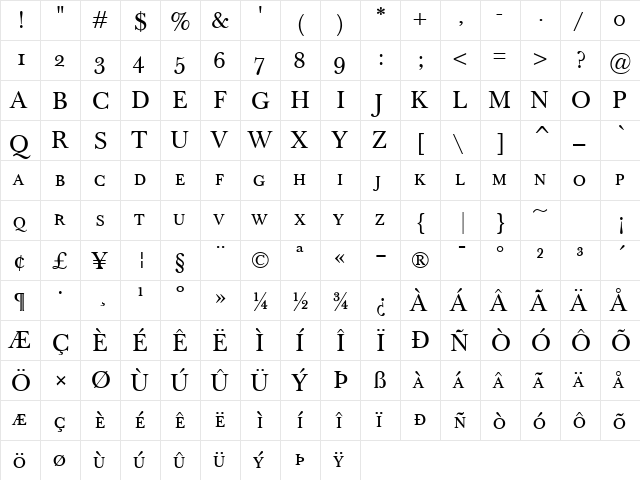
Baskerville Classico SC Regular
Design Context for Baskerville Classico SC Typeface
Baskerville Classico SC wears its vintage influences proudly, with letterforms that recall mid-century signage, classic packaging, and nostalgia-driven design.
Font Pairing: Combine Baskerville Classico SC with a simple slab or neutral sans — period-accurate companions reinforce the vintage feel without competing for attention.
Pro Tip: Use Baskerville Classico SC for headlines and pull quotes rather than body copy — its personality is best appreciated in short, focused bursts.